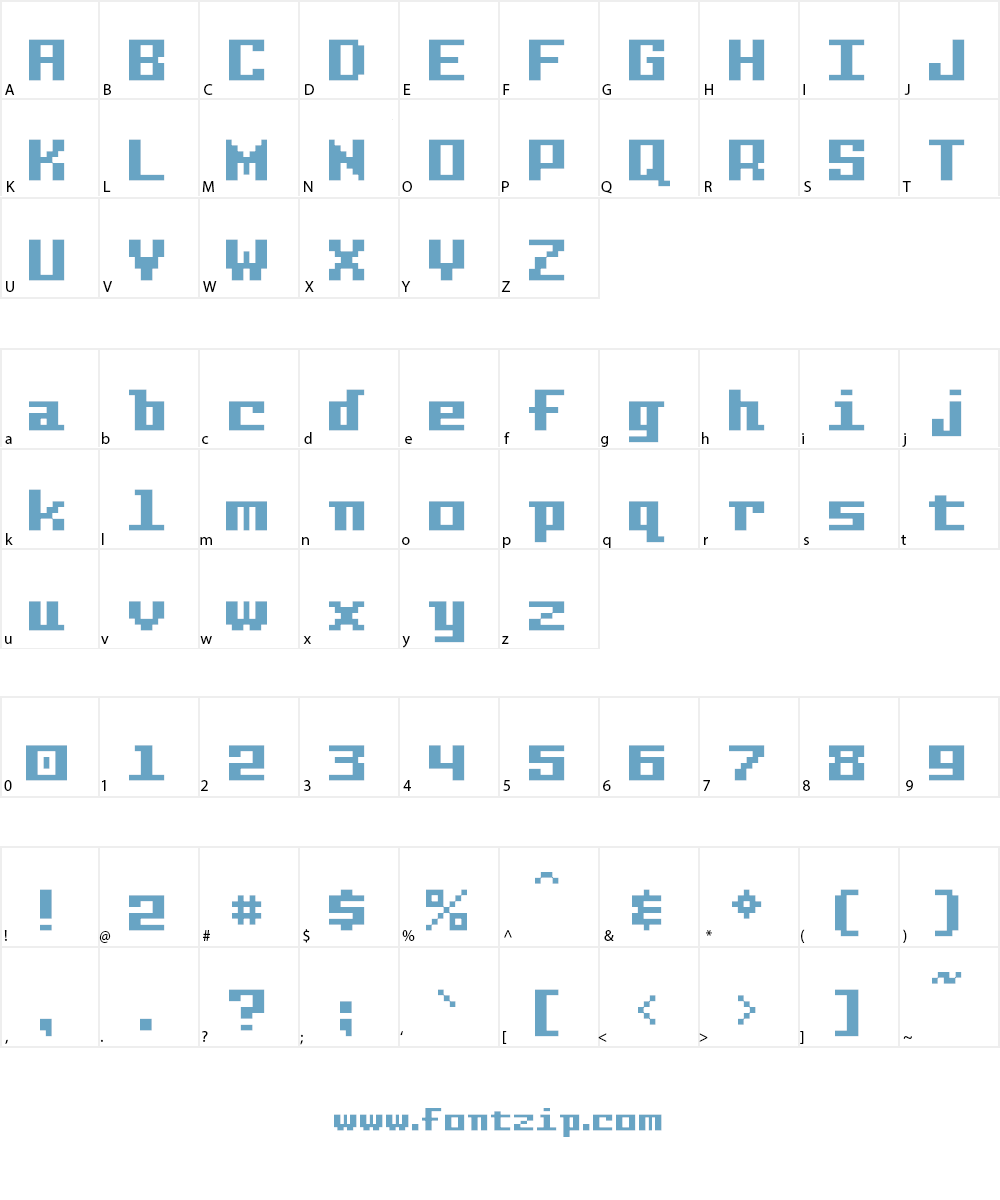
This font is based on the default pixel-face from the classic Mattel Electronics Intellivision title screens. Includes full alphanumeric, punctuation, extended accent characters, and Euro.